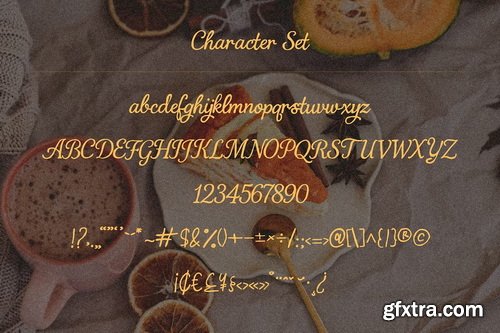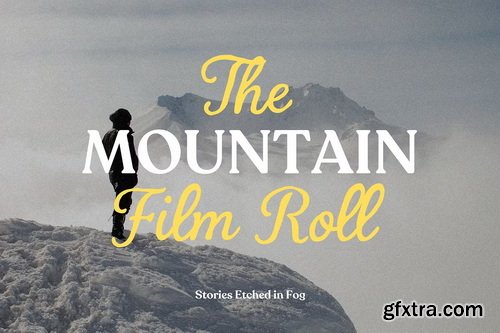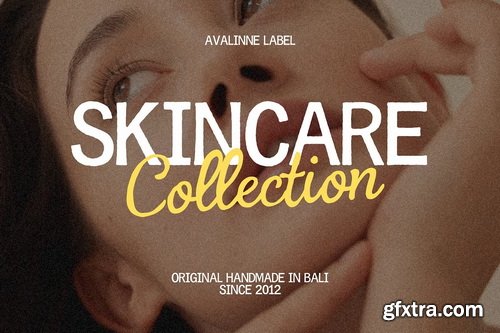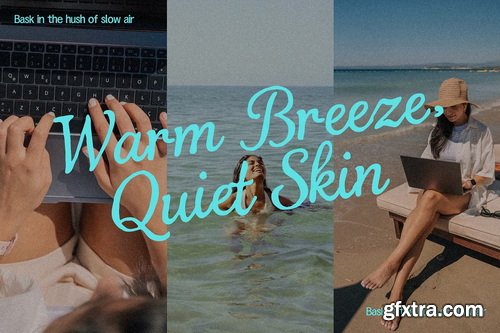
CreativeMarket - Brise Etoilee Elegant Script Font
- Say hello to Brise Étoilée — a handwritten script font that captures the feeling of summer breeze, starlit evenings, and the soft elegance of Mediterranean living. With gentle curves and a fluid rhythm, this typeface was designed to bring warmth, femininity, and timeless charm to your designs.
- Whether you're branding an artisanal skincare line, designing beach-inspired prints, or adding a personal touch to wedding stationery — Brise Étoilée will deliver elegance with ease.